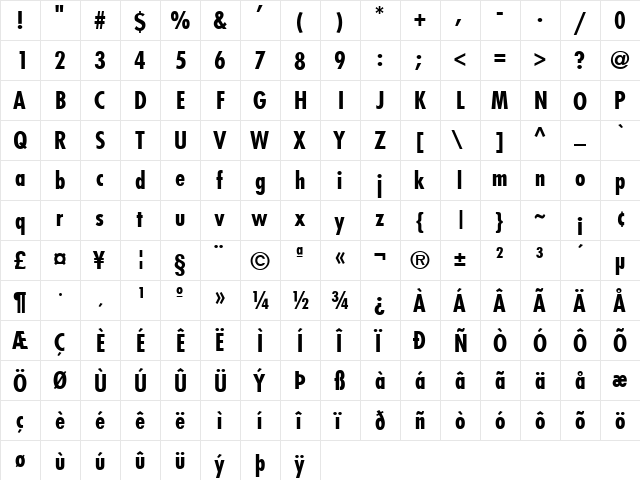
Fujiyama Bold
Design Context for Fujiyama Typeface
Fujiyama is a composed and adaptable typeface that performs quietly and consistently across a wide range of design contexts. The heavy weight commands attention and anchors typographic hierarchies.
Pro Tip: Use Fujiyama in both headline and body roles to test its range before committing to a single application.